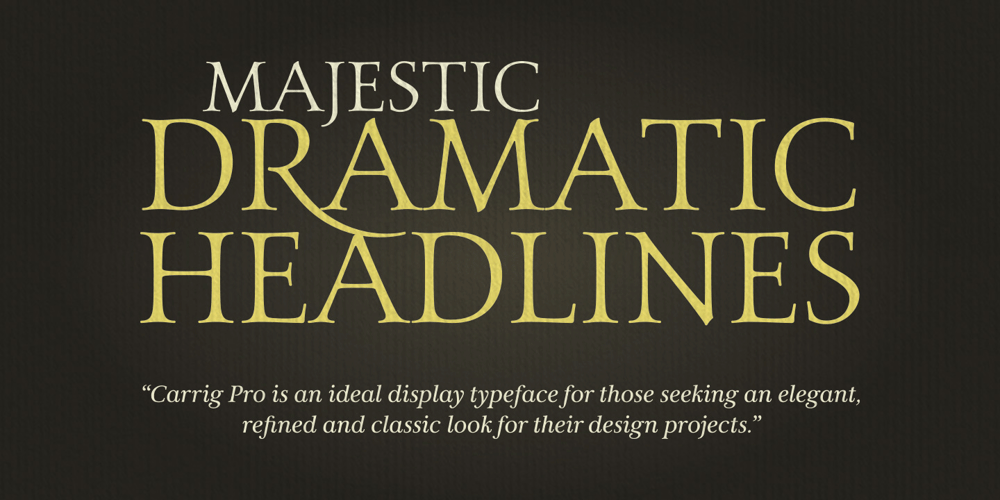
Carrig Pro
Carrig Pro font
Carrig Pro Font Family was designed by Paulo Goode and published by Monotype. Carrig Pro contains 12 styles and family package options. Carrig Pro is a refined and elegant serif. Classed as an Antiqua, Carrig Pro is born from [or borne by] a hybrid of influences that range from early Roman inscriptions to type of the Pre-Modern era, giving Carrig Pro a distinctive character all of its own. Carrig Pro will appear instantly familiar and friendly and could well be the perfect typeface for designers seeking to convey a message with a distinctive and prestigious air. Now a 12-font family, Carrig Pro (2017) is an extended version of Carrig (2015), it has been completely redrawn, revised and improved. Carrig Pro has many useful features for typographers to exploit, such as easily accessible small caps, discretionary ligatures, gadzooks and stylistic alternates, as well as a number of ornamental glyphs. See more here. Key features: 6 weights in roman and italic Small Caps, Ornaments, Alternates, Historic Characters, Ligatures and Gadzooks Full Latin character set 750 glyphs per font.